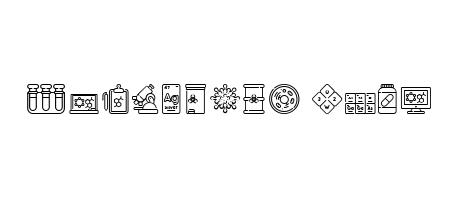
Chemistry Icon
Chemistry Icon is a minimalist line art font depicting scientific tools and concepts. Its thin, clean lines create a precise, almost clinical feel. The icons, ranging from test tubes to petri dishes and computer screens, convey a sense of scientific research and analysis, lending themselves to projects needing a factual, objective aesthetic.